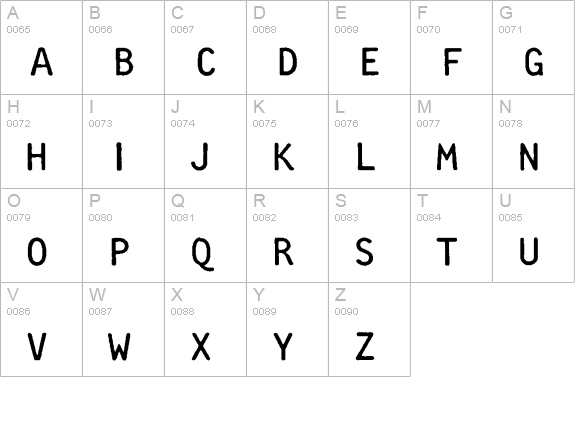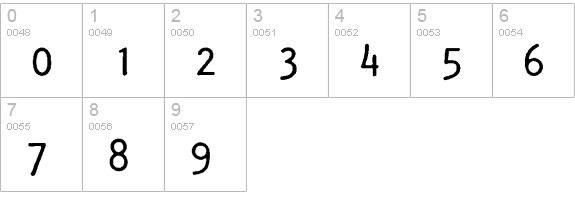
Artisan12 Font Details
Artisan12 is a stunning, handcrafted font that exudes elegance and sophistication. Its intricate details and unique artistic flair make it a perfect choice for adding a touch of luxury to your designs. Whether you're creating invitations, branding materials, or packaging, Artisan12 will make your text stand out with its exquisite charm. This font is not only beautiful but also versatile, suitable for a wide range of design projects. Its timeless appeal and classic design elements make it a favorite among designers looking to elevate their work to the next level. And the best part? Artisan12 is available for free download at FontsMarket.com. This means you can access this gorgeous font without breaking the bank, making it a fantastic option for both personal and commercial use. Don't miss out on the opportunity to enhance your designs with the beauty and sophistication of Artisan12 font!